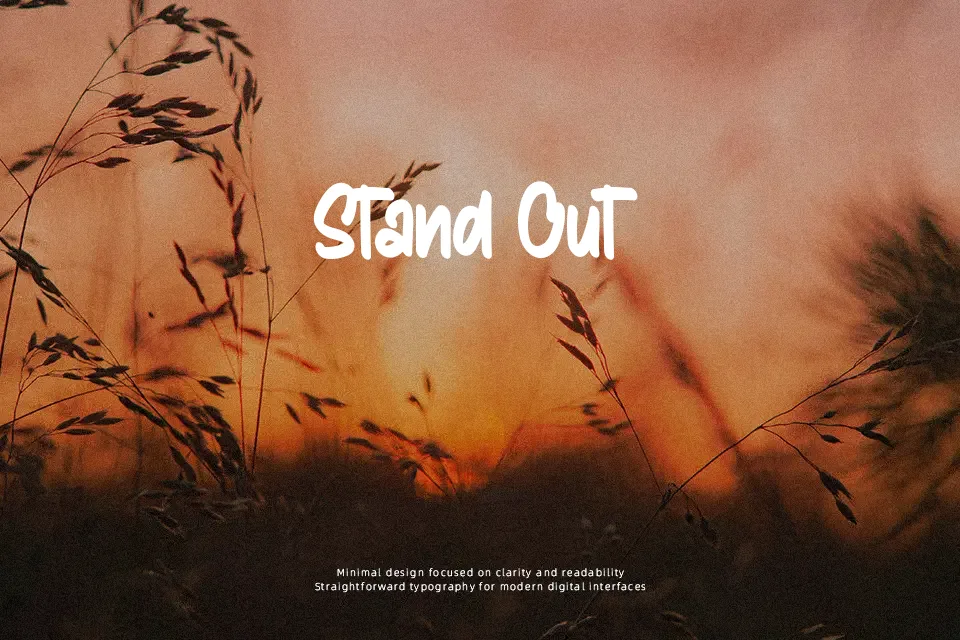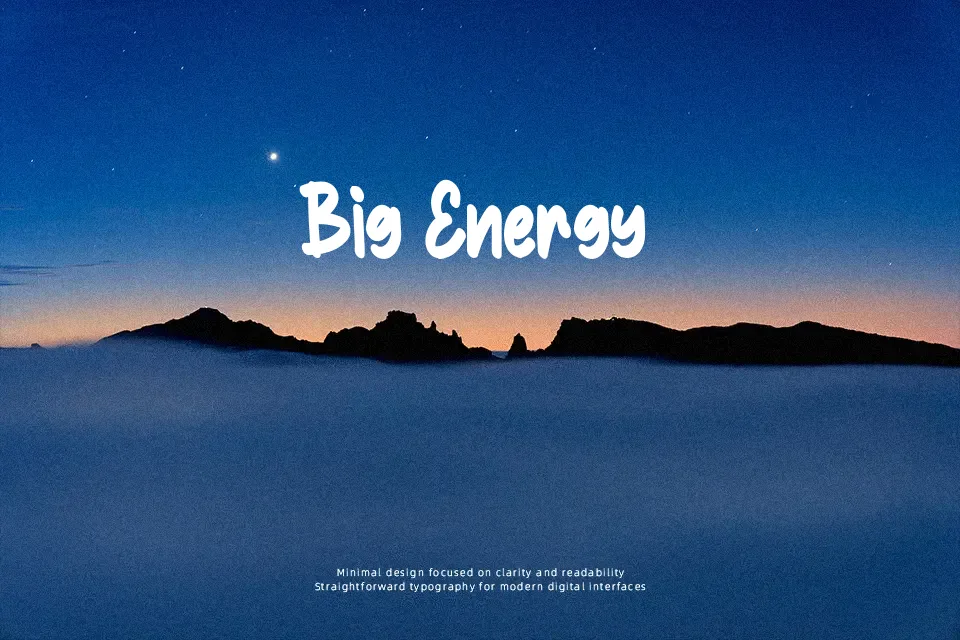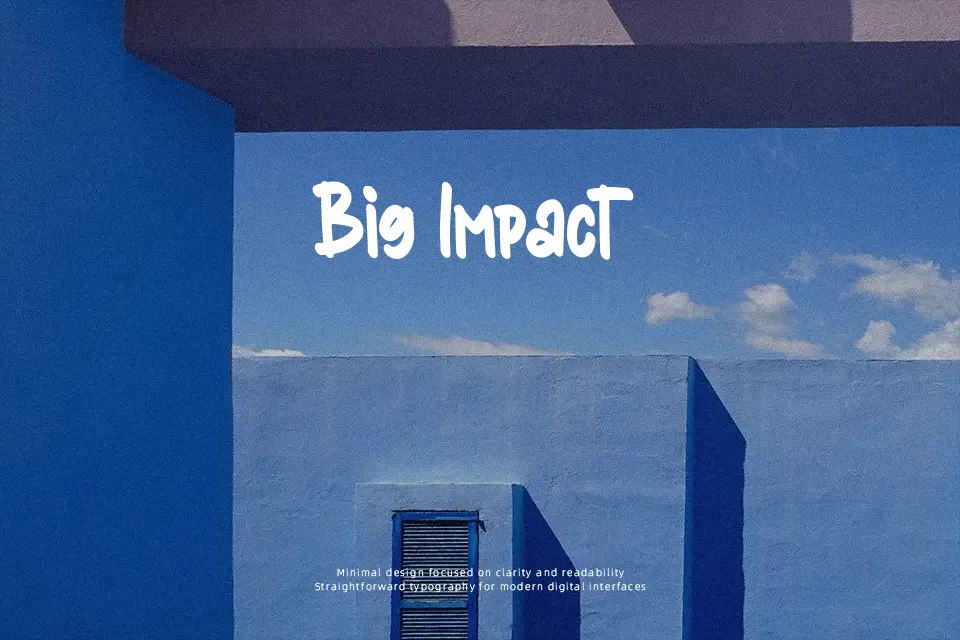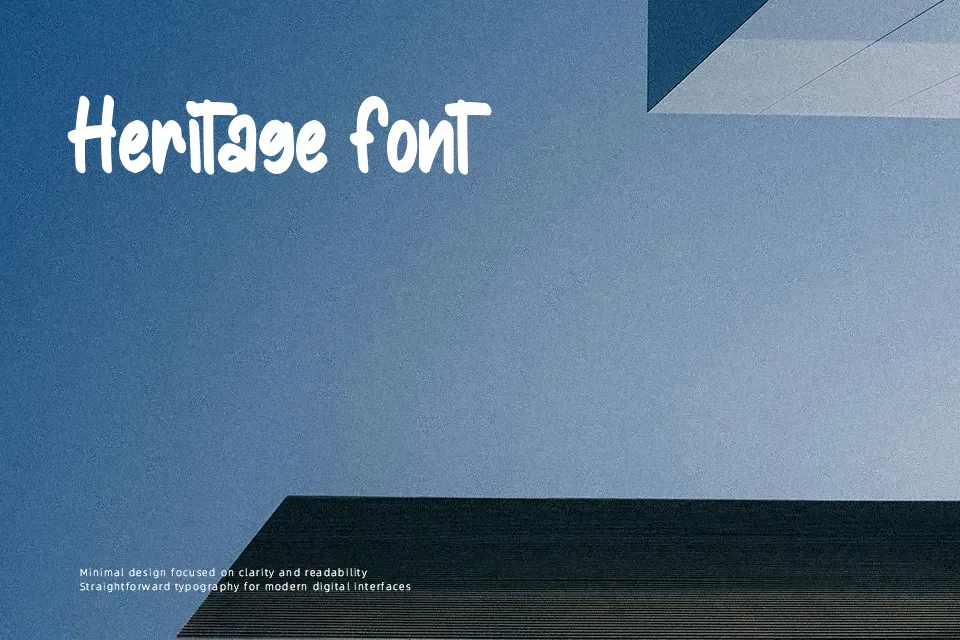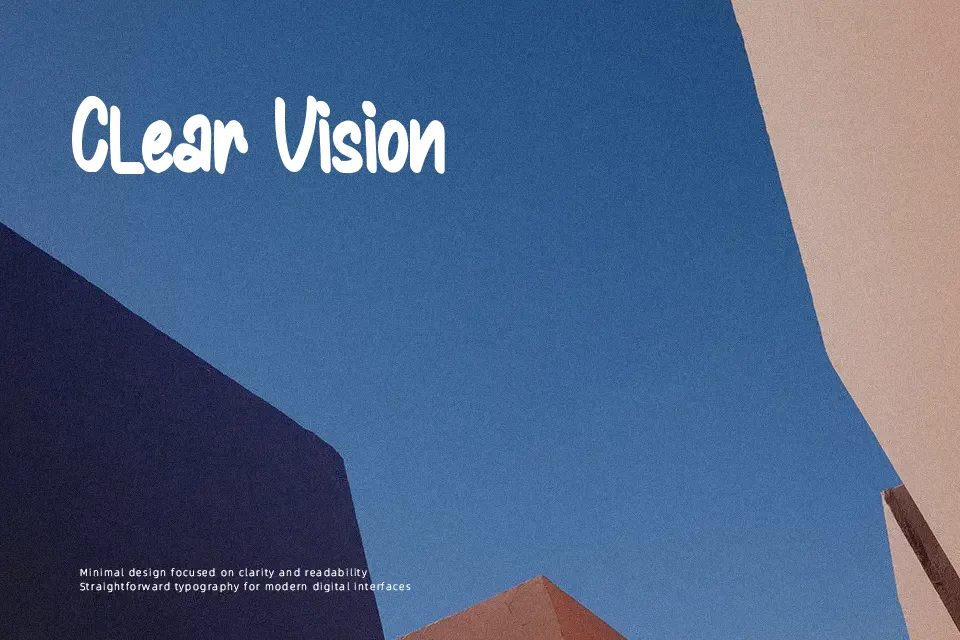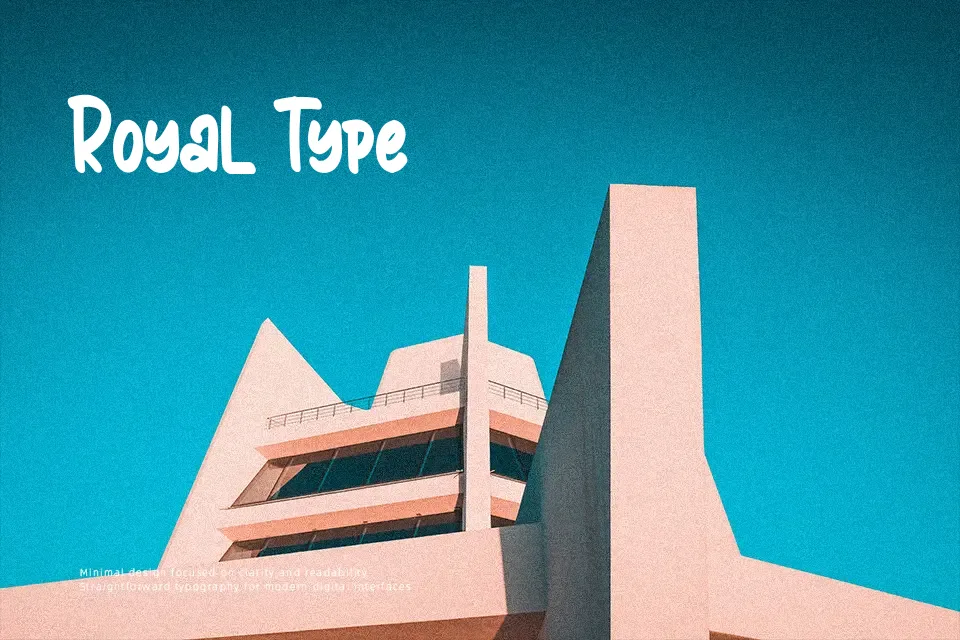
Sunkist Squash Font
Sunkist Squash Font features chunky, irregular stroke weights with rounded corners and bouncy baseline proportions that produce an energetic comic aesthetic. The wide letterforms exhibit minimal stroke contrast, maintaining visual weight across uppercase and lowercase sets. Balanced character spacing prevents overlapping in large titles, though tight rhythm reduces clarity in continuous text. The typeface performs best in vibrant display settings like animation titles, snack packaging, and children party banners. However, the exaggerated curves and heavy weight make extended body copy difficult to decipher. Overall, the sturdy contours ensure strong visual impact in bold headline designs.
Best For: comic book covers, children party posters, snack food packaging, animated video titles
Not Ideal For: dense editorial paragraphs, legal documentation, small mobile interface captions
Perfect for branding, headline, and kids, with a bold and cartoon style.